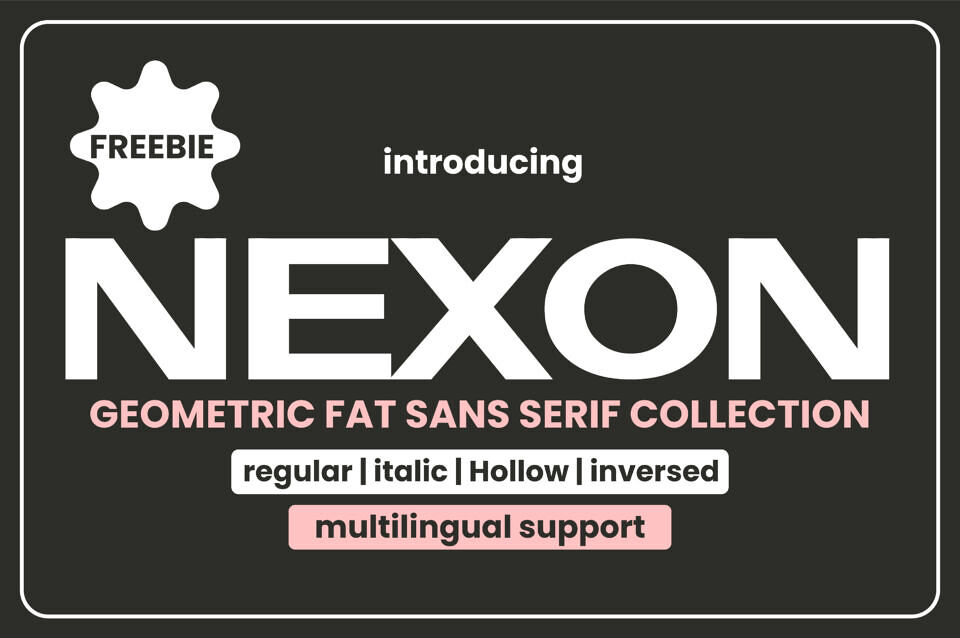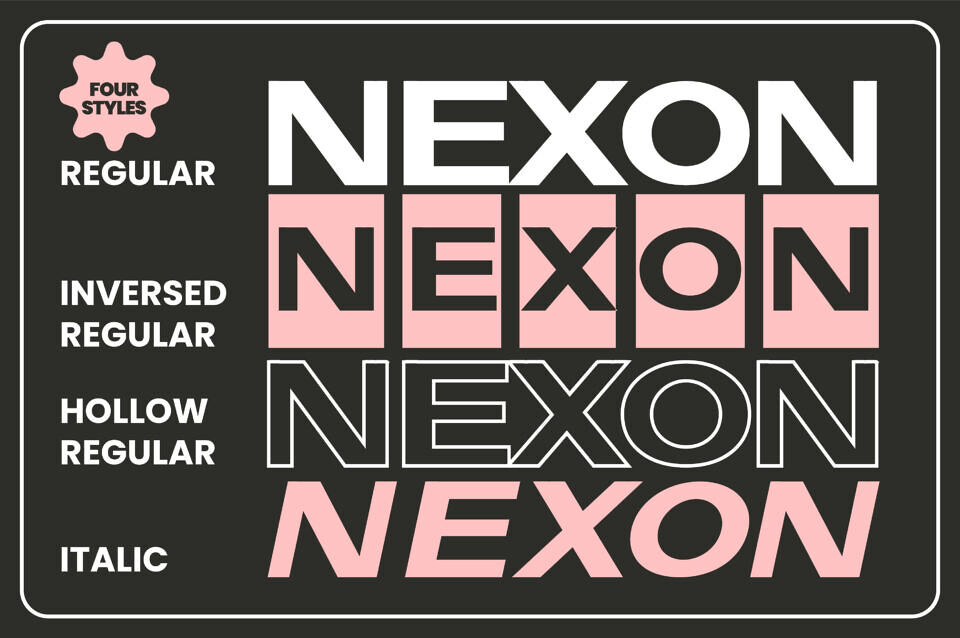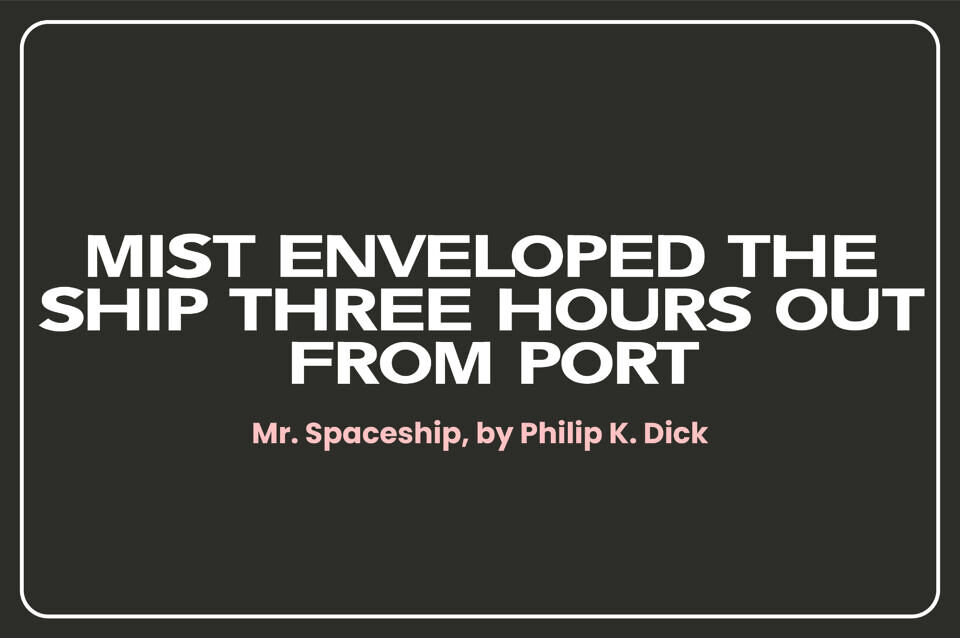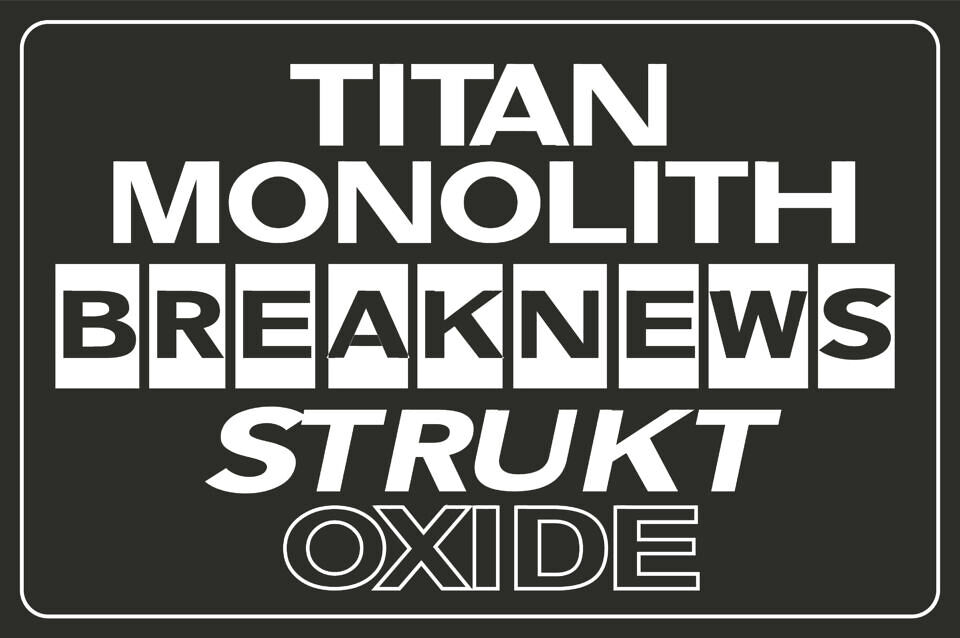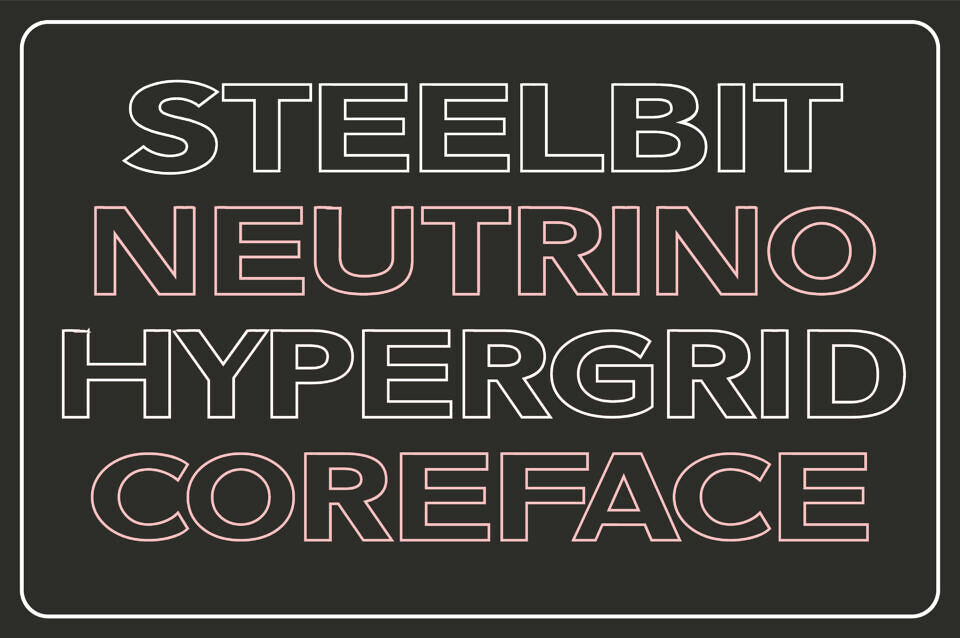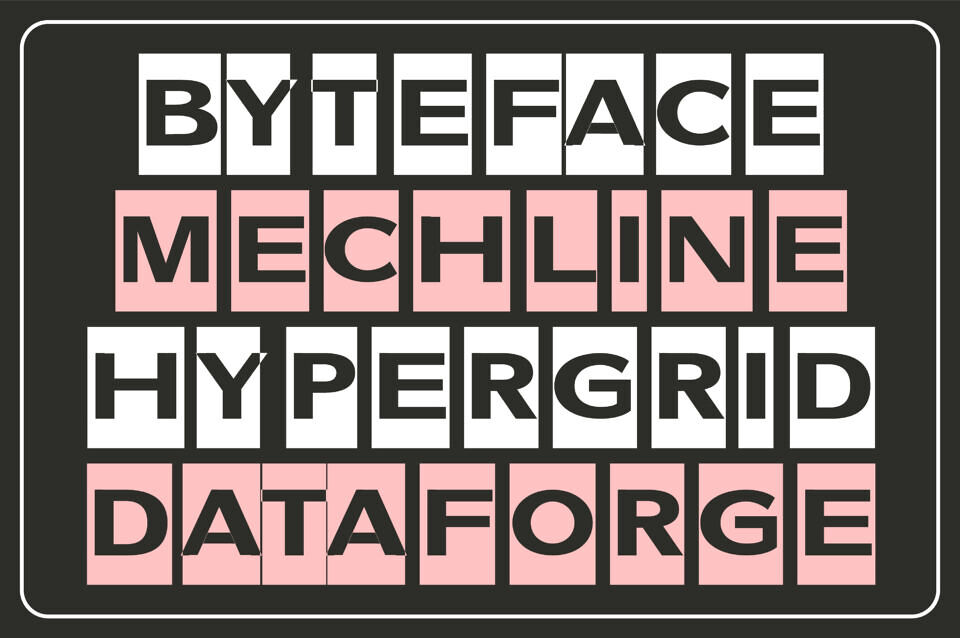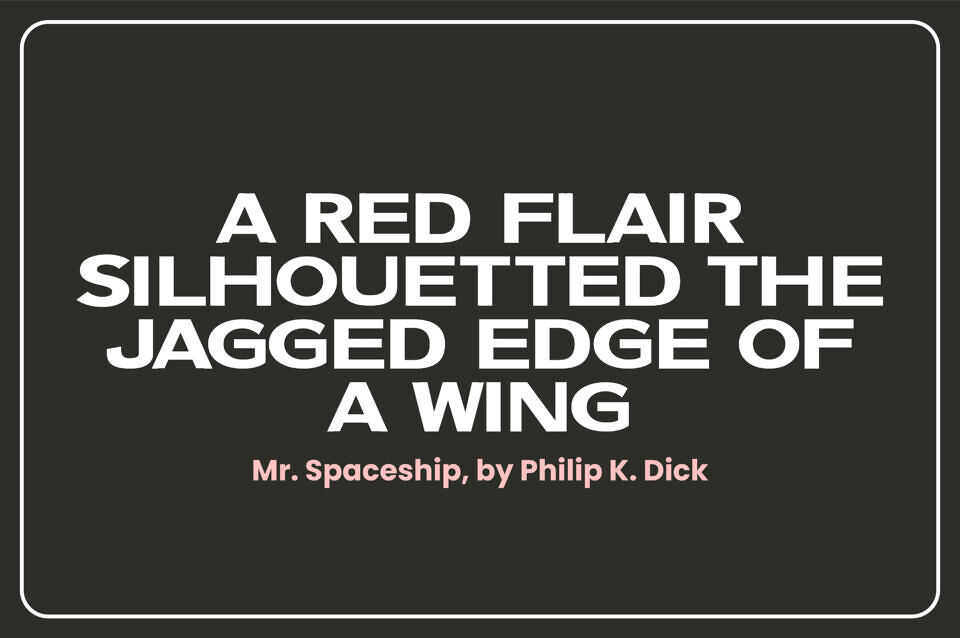
Nexon Font
Experience the audacious charm of the Nexon Sans Family, a robust geometric sans serif font suite offering 4 unique styles. Explore Nexon’s Regular, Italic, Hollow, and Reversed variations to transform your projects, making them the center of attention.
Whether you’re scheming for packaging, tailoring a sleek logo, branding a startup, hand-crafting an artwork, or developing a web design marvel, Nexon is your go-to font. Incorporate Nexon and bear witness to the striking allure it permeates your creations with, ensuring they never go unnoticed.